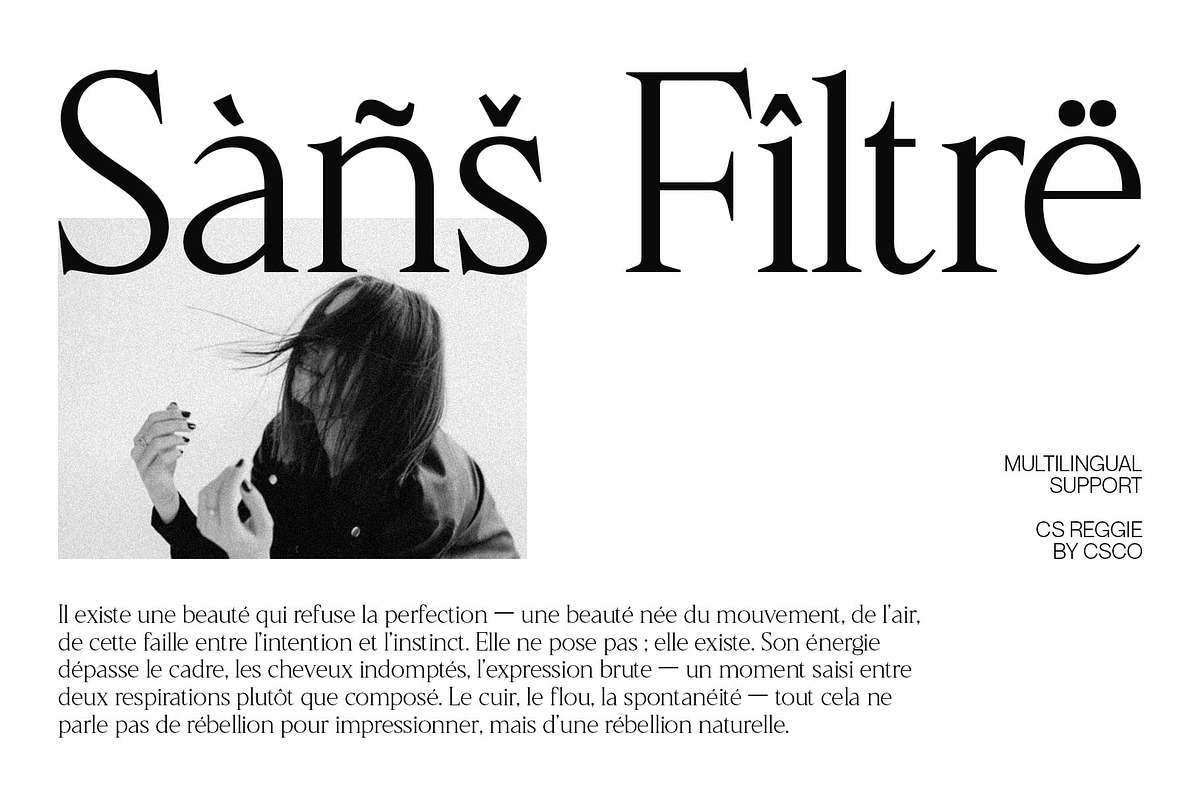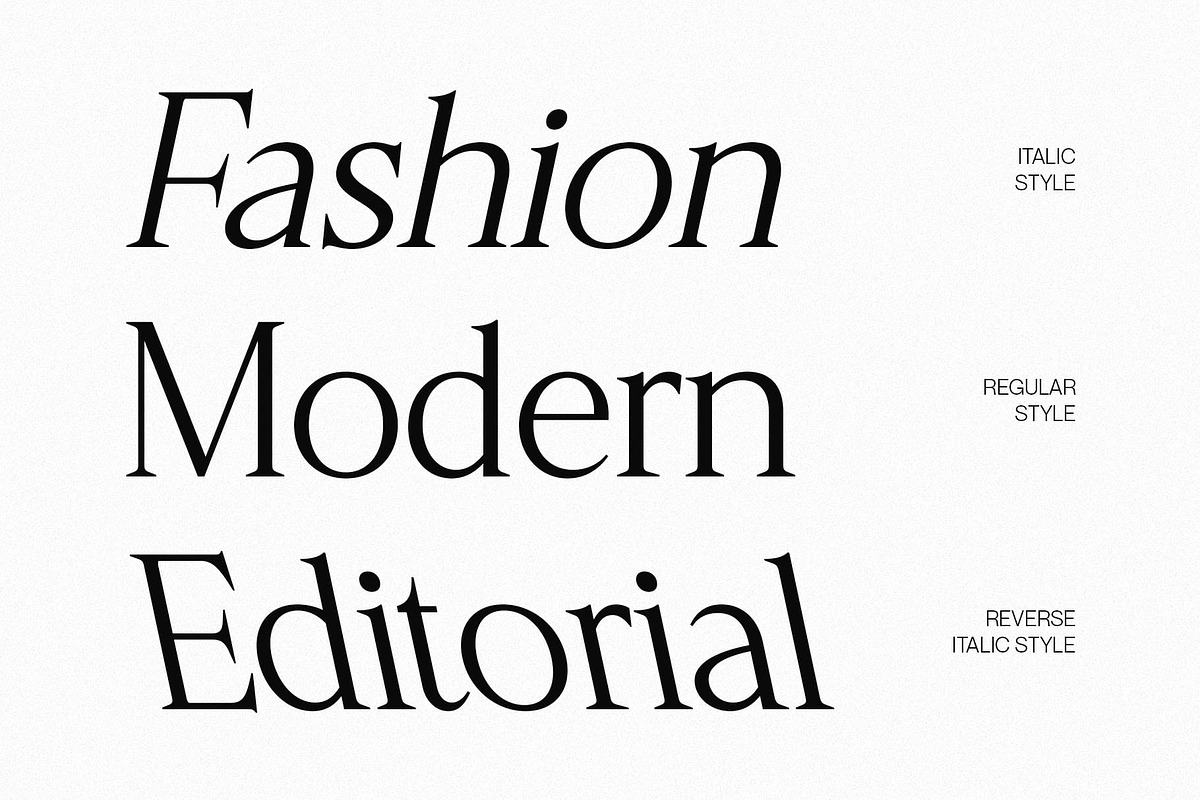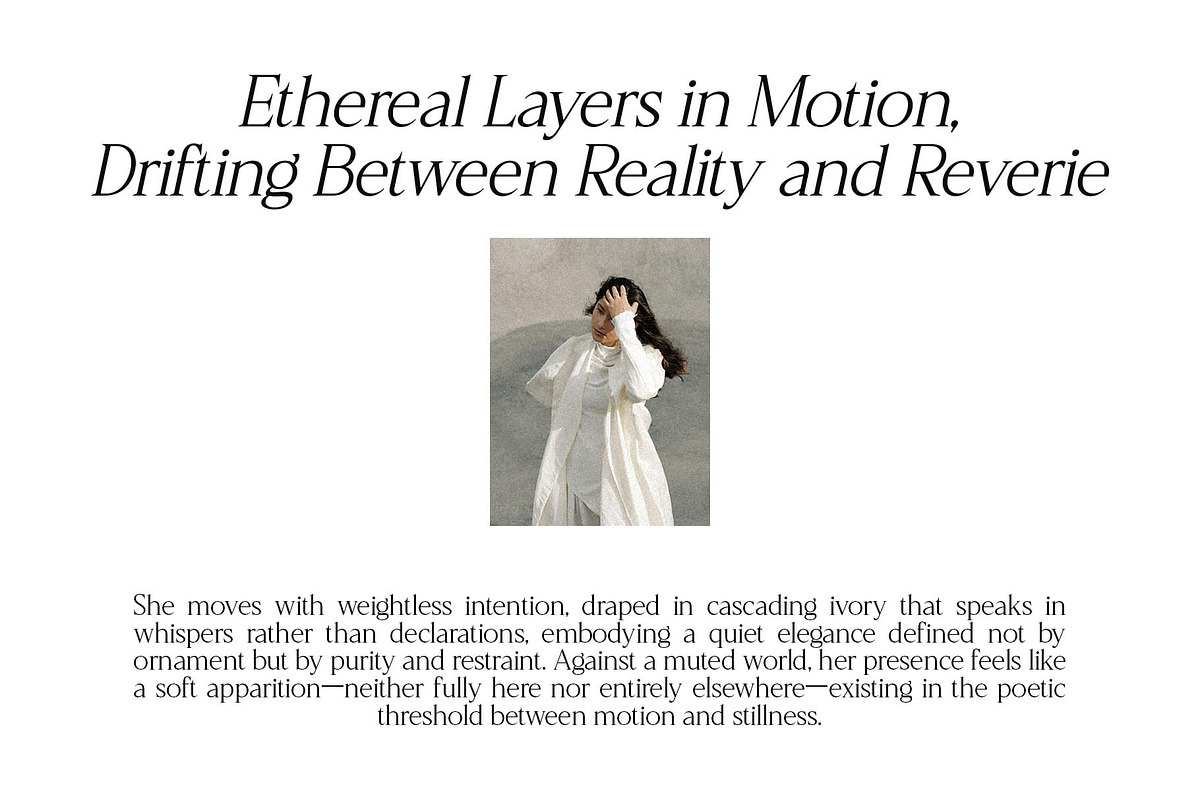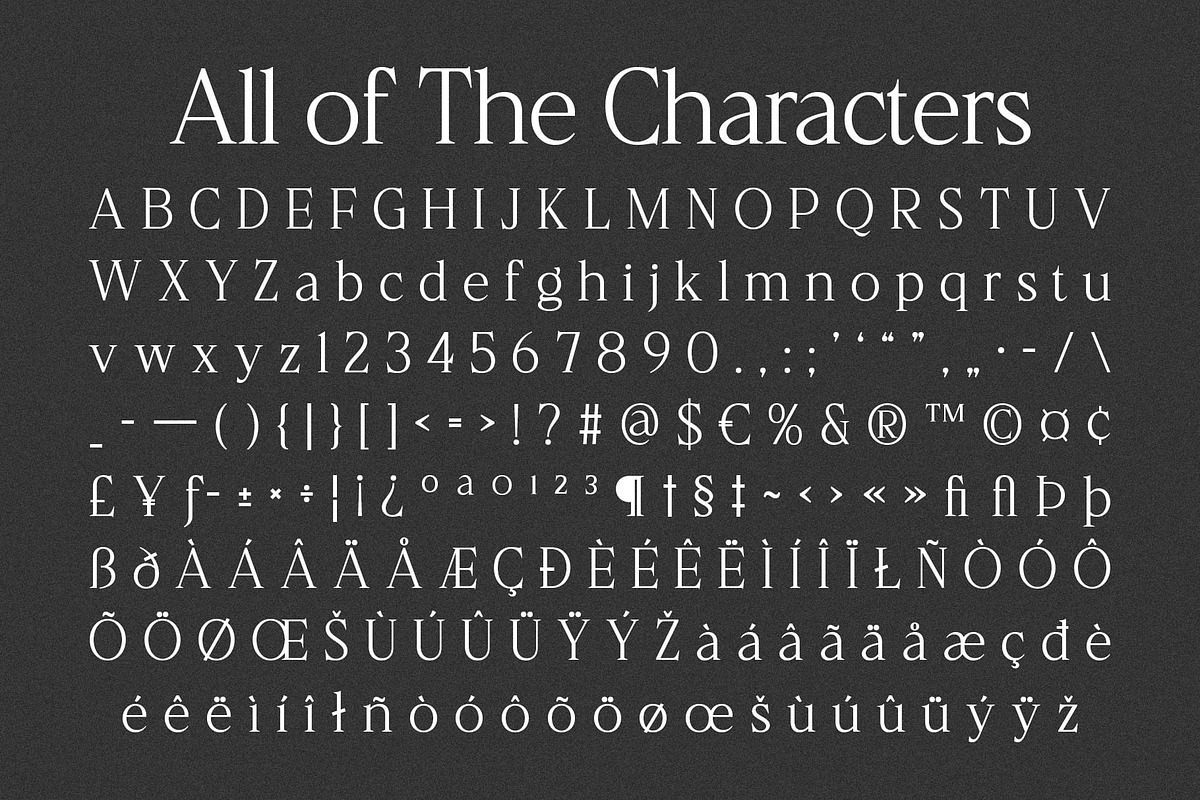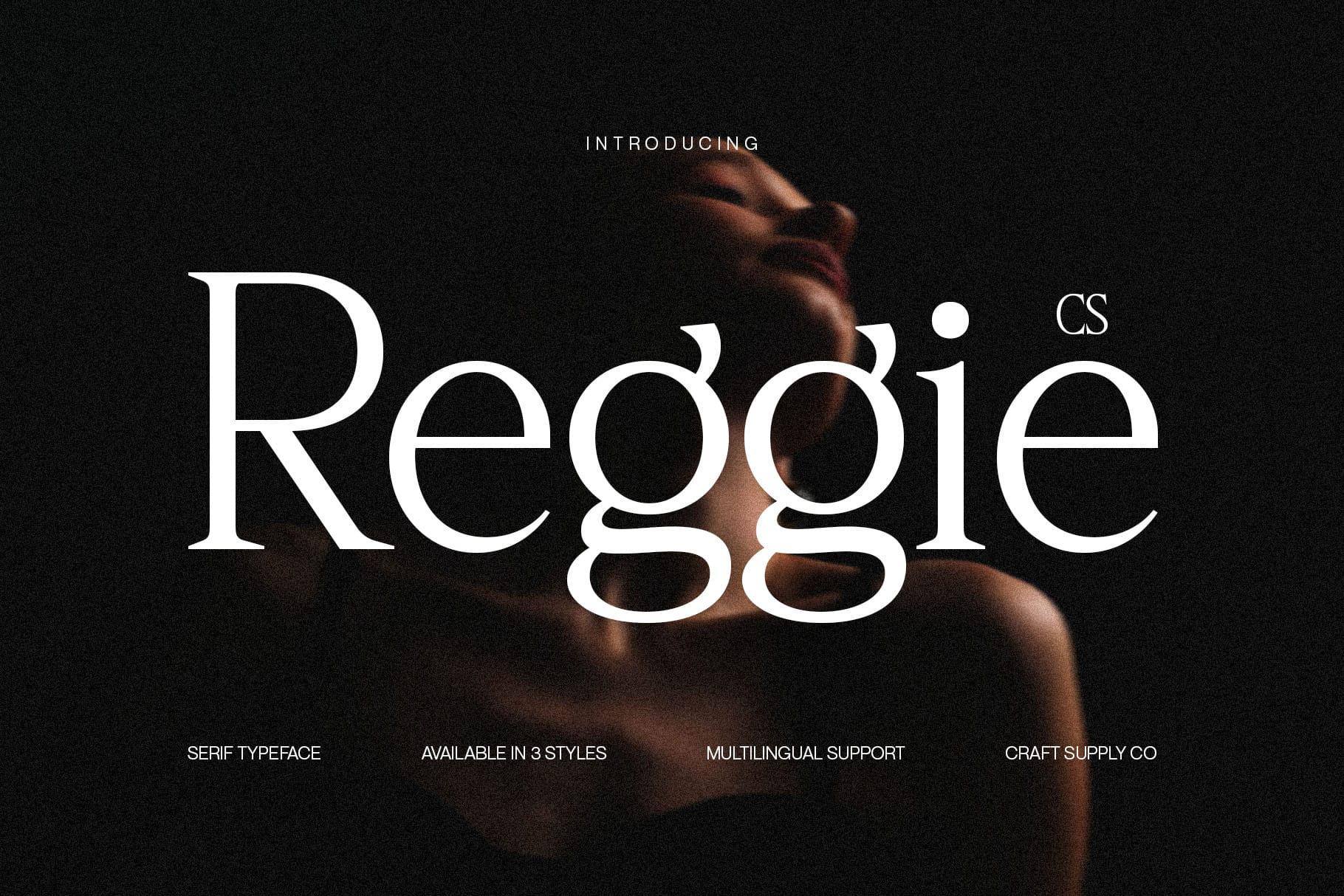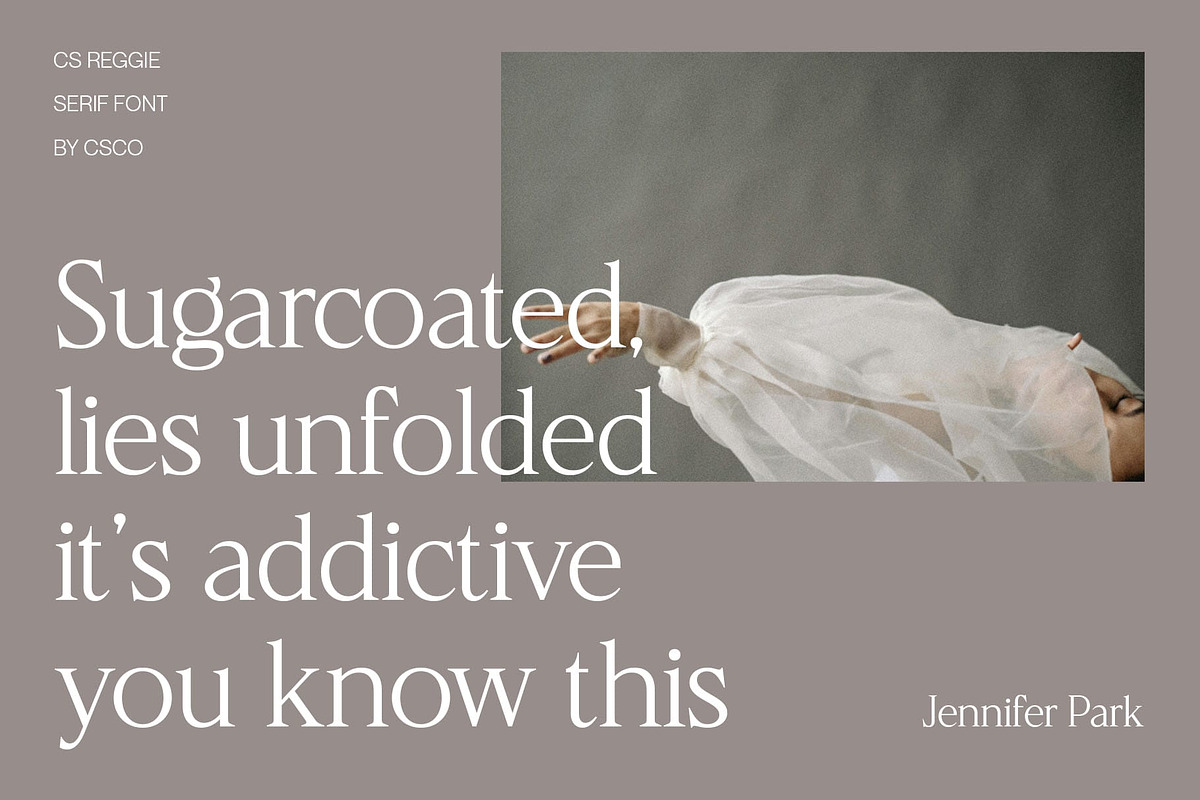
CS Reggie – Serif Typeface
CS Reggie – Minimalist Elegance with Modern Sophistication
Elegant Serif with Refined Simplicity This is an elegant serif font defined by its refined curves and minimalist design. Its clean, balanced structure brings a sense of calm sophistication, making it a perfect choice for modern designers seeking timeless beauty with a contemporary edge. Each letterform exudes poise and clarity, creating a luxurious visual experience.
Minimalist Design for Timeless Appeal With its sleek lines and understated elegance, this font captures the essence of modern minimalism. The font’s simplicity enhances readability while maintaining a graceful presence, ensuring your text looks polished and professional in any context from print to digital.
Perfect for Luxury and Editorial Projects Designed for luxury branding, editorials, and refined visual identities, this font elevates every composition it touches. Its elegant form makes it ideal for fashion magazines, upscale packaging, or corporate design, where precision and style define the message.
A Fusion of Clarity and Class This font blends minimalism with elegance, offering a sophisticated typeface that stands out without excess. Whether used for logos, titles, or editorial layouts, it delivers a modern and timeless charm that embodies professionalism, confidence, and refined taste.